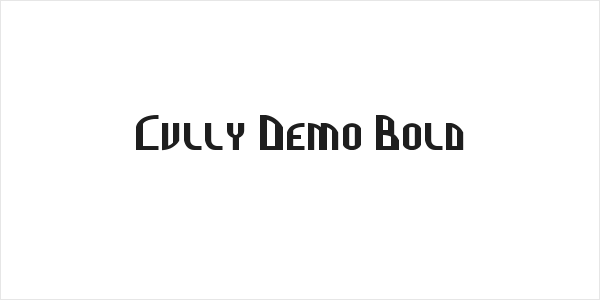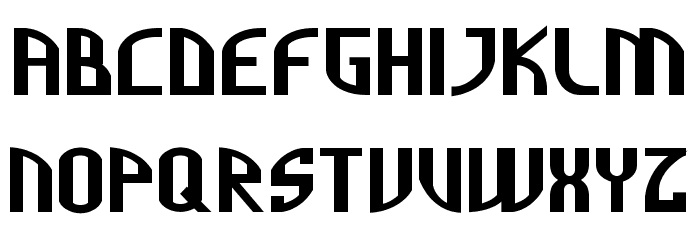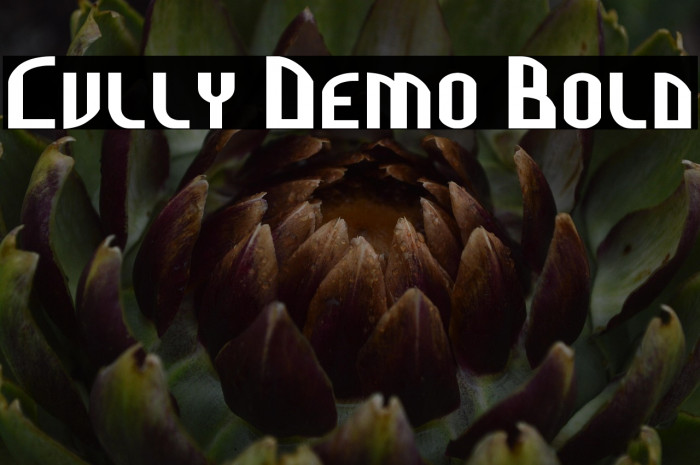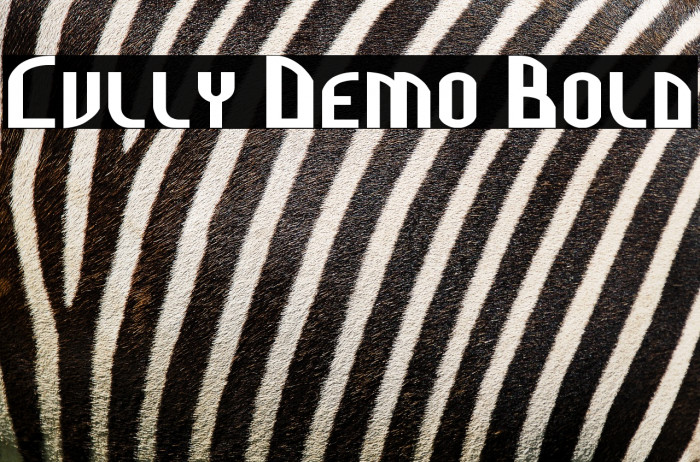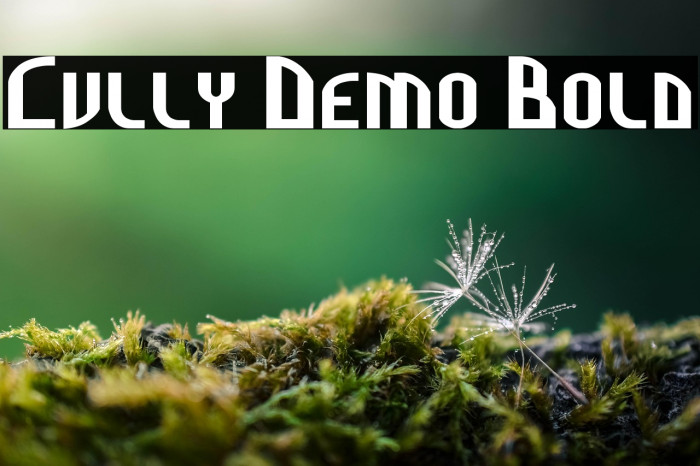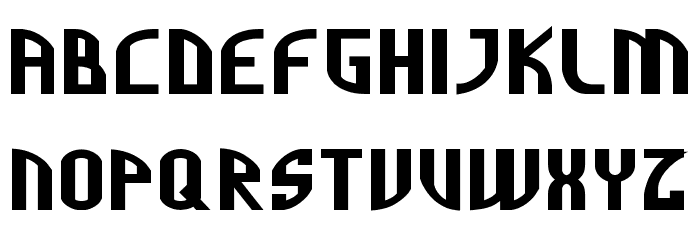
Cully Demo Bold Font
Cully Demo Bold Description
This font features a bold, geometric design with a modern and futuristic aesthetic. The characters are constructed with strong, angular lines and sharp edges, giving it a distinctive and assertive appearance. The uniform stroke width across all characters contributes to a cohesive and balanced look. The uppercase letters are particularly striking, with unique cuts and angles that enhance the font's dynamic style. This font is well-suited for projects that require a bold statement, such as headlines, posters, and branding materials. Its clean and structured form makes it versatile for various design applications, while its boldness ensures it captures attention effectively.
| Proposed Projects | Ideal for headlines, posters, branding, and any design requiring a bold, modern statement. |